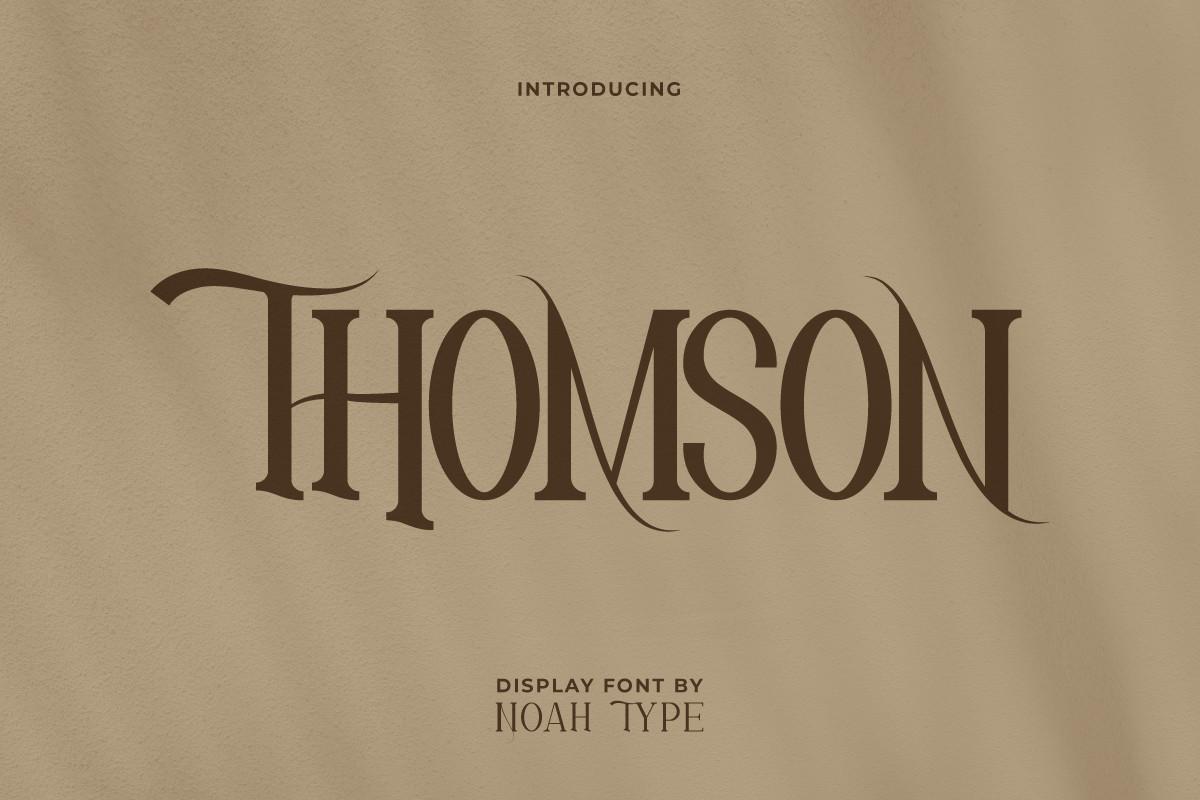
Thomson Font Description
Thomson is a modern serif font with a unique style and authentic ligatures. The font was inspired by a classic lettering poster. It has an authentic style that will bring a personal touch to your creative ideas.
Use this font for wedding designs, branding, artists, makeup packaging, outdoor fashion products, camping, headlines, logos, posters, titles, and so much more.